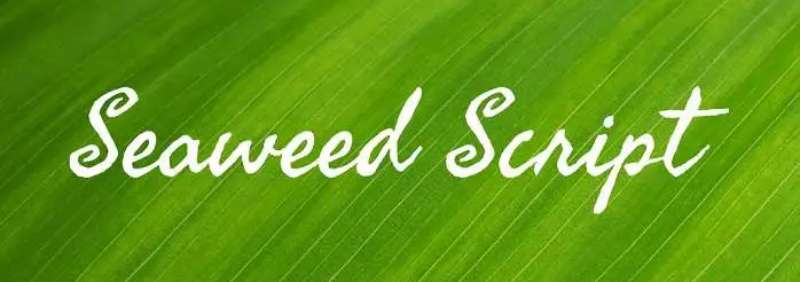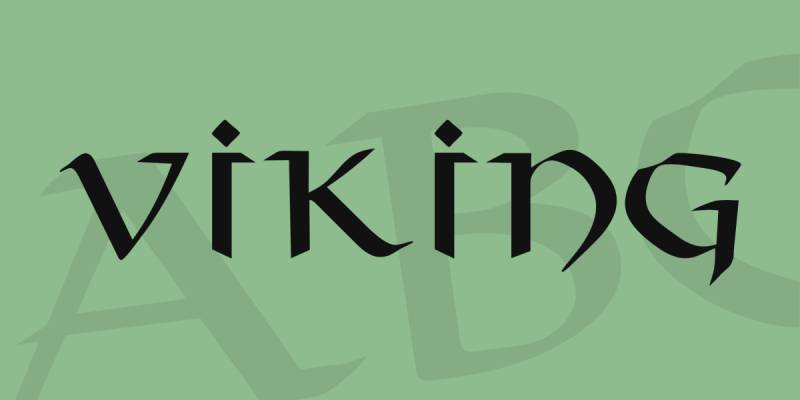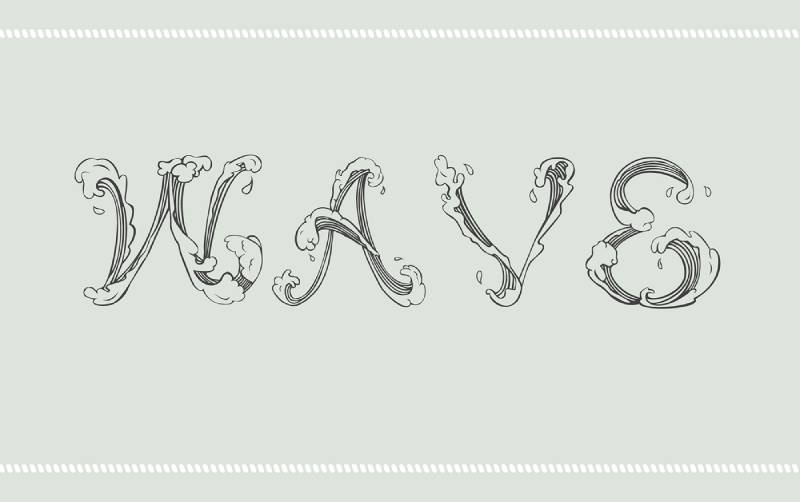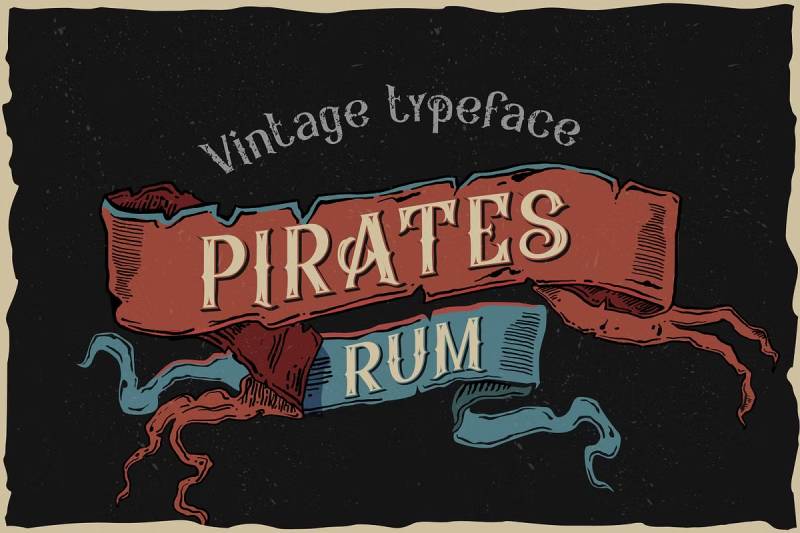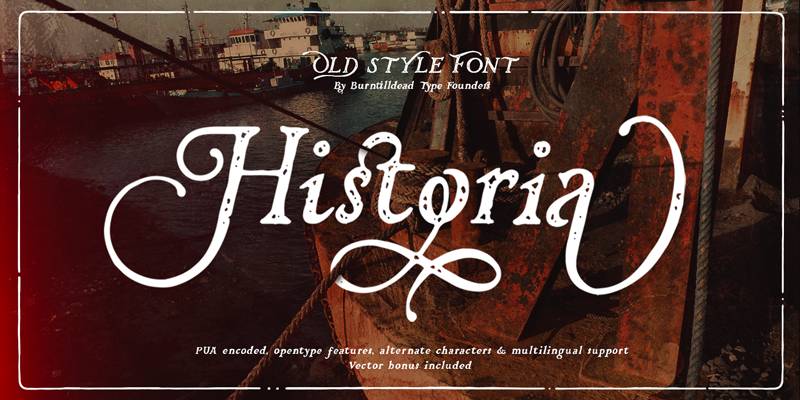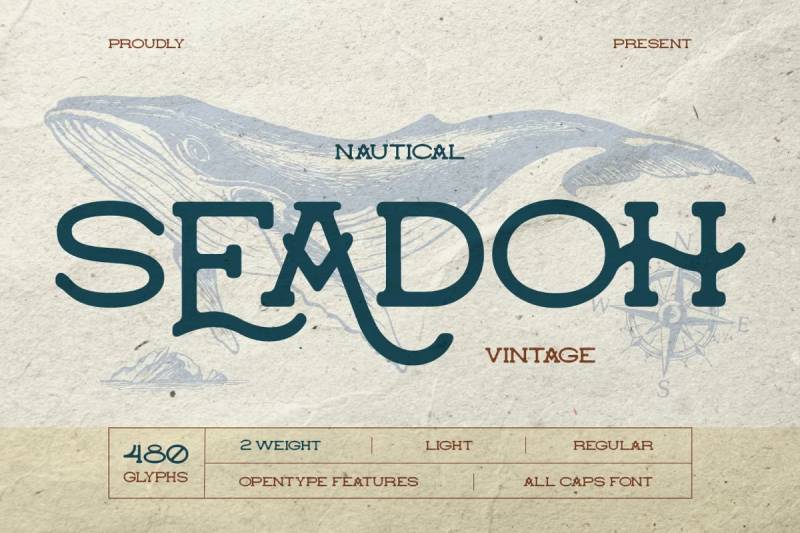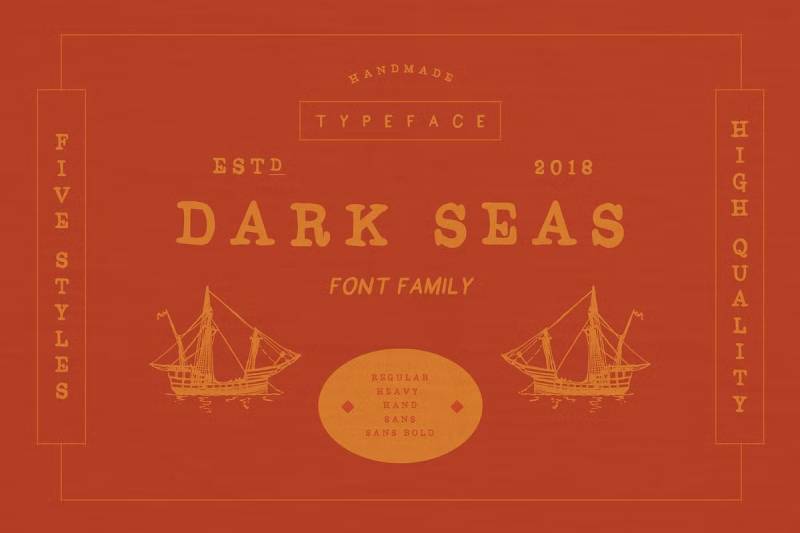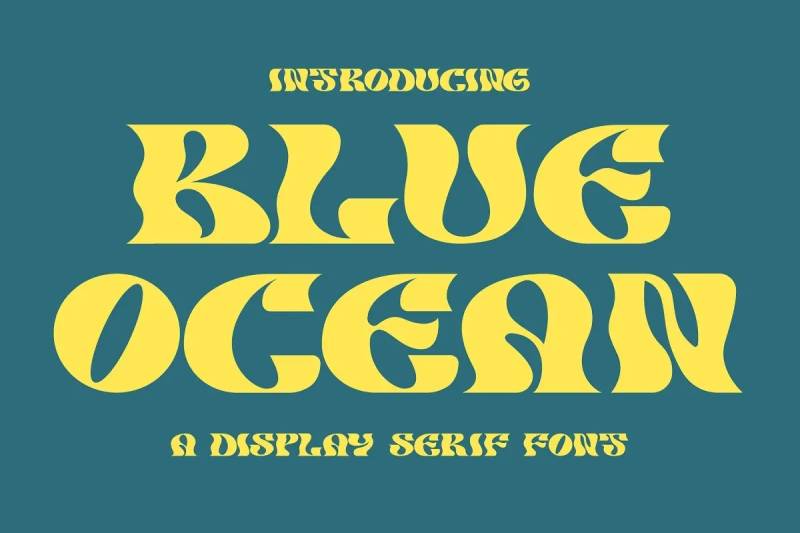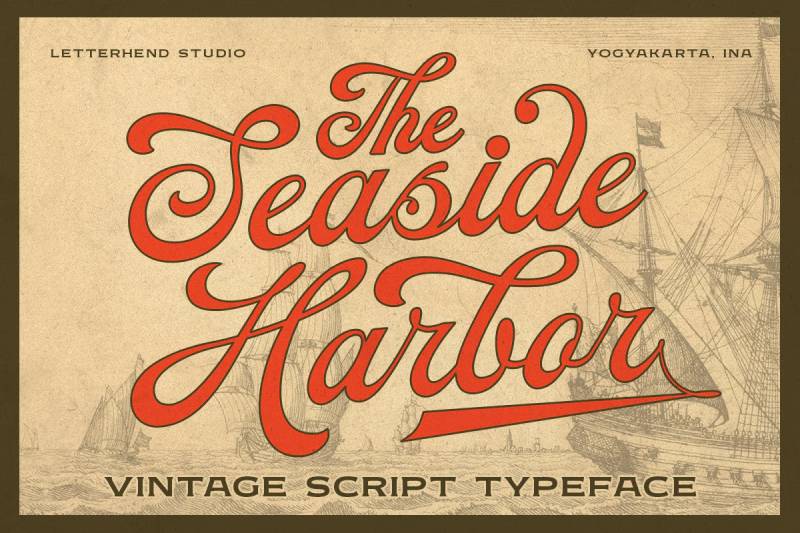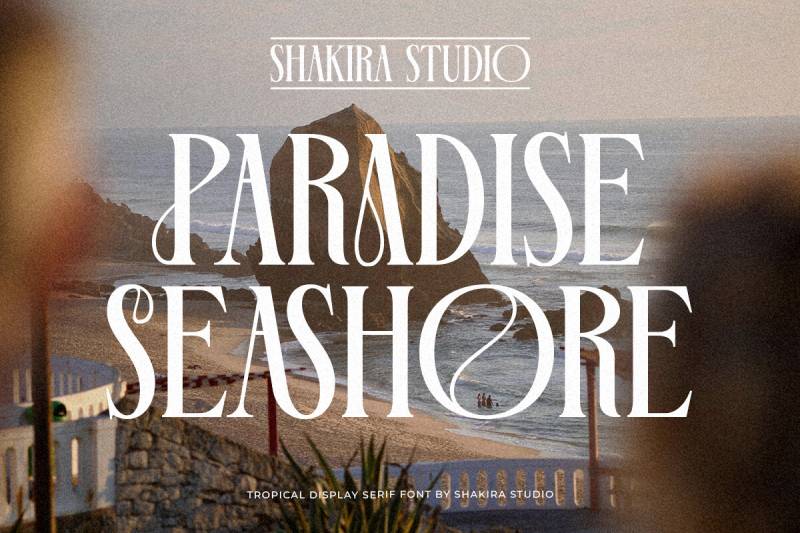
Typography can make or break your maritime design. Whether you’re branding a yacht club, designing coastal restaurant menus, or creating ocean-themed packaging, the best nautical fonts transform ordinary projects into authentic seafaring experiences.
The right typeface captures everything from vintage sailor aesthetics to modern beach vibes. Some fonts feature literal rope textures and anchor motifs, while others evoke maritime heritage through subtle design choices.
This guide presents carefully selected nautical fonts across multiple styles:
- Bold display fonts for impactful headlines
- Elegant scripts for coastal branding
- Vintage serifs with sailor character
- Playful options for beach-themed projects
You’ll discover where to download each font, how to pair them effectively, and which projects they excel in.
The Best Nautical Fonts
| Font Name | Primary Style Context | Unique Attributes | Best Use Case |
|---|---|---|---|
| Face Rope | Decorative nautical | Rope-textured letterforms, maritime equipment aesthetic | Sailing club logos, maritime signage |
| Sailors | Traditional seafaring | Classic naval typography, professional appearance | Marine services, nautical documentation |
| Seaweed Script | Organic ocean-inspired | Flowing script, underwater plant movement | Beach resort branding, coastal wedding invitations |
| Viking | Historical maritime warrior | Norse seafaring heritage, bold runic influence | Historical naval content, adventure branding |
| Bradwick | Vintage nautical serif | Old-world craftsmanship, maritime heritage feel | Historic port signage, traditional boat naming |
| Wave | Fluid water motion | Undulating letterforms, ocean wave dynamics | Surf brands, aquatic sports marketing |
| Pirates Rum | Swashbuckling adventure | Pirate era aesthetic, rum barrel labeling style | Themed restaurants, beverage packaging |
| Historia | Classical maritime history | Academic naval typography, archival quality | Maritime museums, historical documentation |
| Seadoh | Modern nautical display | Contemporary ocean aesthetic, clean maritime lines | Modern yacht branding, luxury cruise materials |
| Dark Seas | Ominous oceanic | Deep water mystery, stormy sea atmosphere | Thriller novel covers, horror marine fiction |
| Sailor Girl | Playful feminine nautical | Retro pin-up sailor aesthetic, vintage charm | Vintage fashion brands, nostalgic seaside marketing |
| Ocean Waves | Rhythmic water patterns | Wave repetition, tidal movement styling | Ocean conservation campaigns, marine science |
| Blue Ocean | Clean aquatic serenity | Calm water essence, clear blue aesthetics | Spa resorts, tropical vacation marketing |
| Seaside Harbor | Coastal port atmosphere | Harbor dock typography, commercial port aesthetic | Marina signage, port authority materials |
| Paradise Seashore | Tropical beach resort | Island vacation vibe, paradise shore aesthetics | Resort branding, tropical tourism |
| Nautical | Universal maritime | All-purpose naval design, versatile seafaring style | General maritime projects, boat documentation |
| Voyagar | Exploration journey | Adventure voyage aesthetic, discovery expedition feel | Travel blogs, expedition documentation |
| Salty Ocean | Weathered seawater | Salt-worn texture, oceanic weathering effects | Fishing industry, commercial seafood branding |
| Freebooter | Pirate freedom | Buccaneer rebellion, lawless seas typography | Pirate-themed entertainment, rebel branding |
| Sailor Terry | Classic sailor portrait | Traditional mariner character, naval personnel style | Naval recruitment, seafarer organizations |
| Galley | Ship kitchen utility | Galley workspace aesthetic, functional maritime design | Marine catering, ship provision services |
| Marinaio | Italian maritime heritage | Mediterranean naval tradition, Italian sailor culture | Italian coastal restaurants, Mediterranean branding |
| Capitan Mura | Captain authority | Captain’s command presence, leadership typography | Captain’s quarters signage, maritime leadership |
| Spinnaker | Racing sail dynamic | Downwind sail typography, racing yacht aesthetic | Sailing competitions, yacht racing events |
| Cold Ocean | Arctic maritime | Polar water aesthetic, frigid sea environment | Arctic expeditions, polar research communications |
| Fisherman | Commercial fishing industry | Working boat typography, catch industry aesthetic | Fishing fleet branding, seafood markets |
| Boatswain | Deck crew technical | Bosun’s rank typography, deck operations style | Maritime training, crew documentation |
| Unmoor | Anchor release action | Departure readiness, mooring operation aesthetic | Port operations, dock management |
| Eastern | Oriental maritime | Asian seafaring tradition, Eastern naval culture | Asian maritime museums, Eastern naval history |
| Mermaid | Mythological ocean creature | Aquatic folklore, underwater mythology aesthetic | Fantasy ocean stories, children’s marine books |
Effective font pairing matters too. Combine decorative nautical headers with clean body typography for optimal readability. Your maritime branding deserves fonts that capture authentic seafaring spirit.